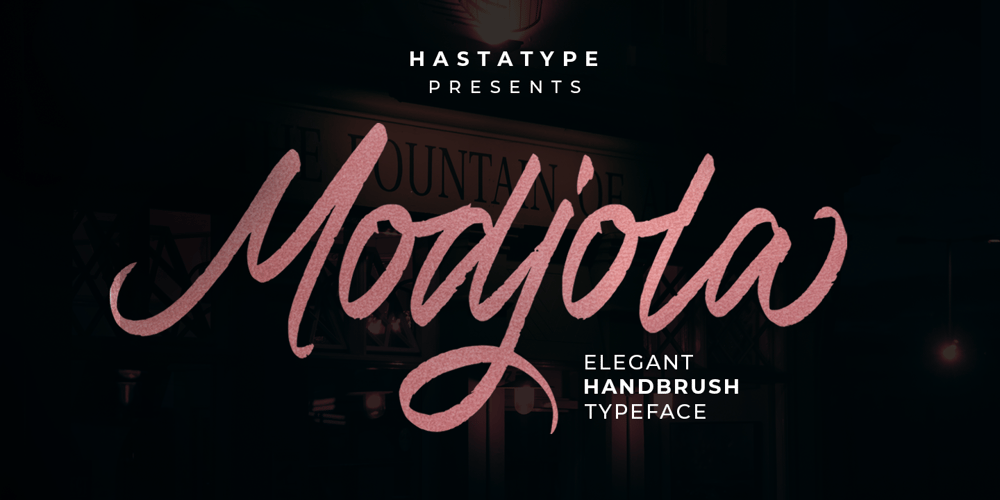
Modjola
Modjola font
Modjola Font Family was designed by Salman Mashudi and published by Hasta Type. Modjola contains 1 styles and family package options. Modjola is an elegant brushed handwritten font. It looks beautiful on a variety of designs requiring a personalized style, such as wedding invitations, thank you cards, weddings, greeting cards, logos and so on.